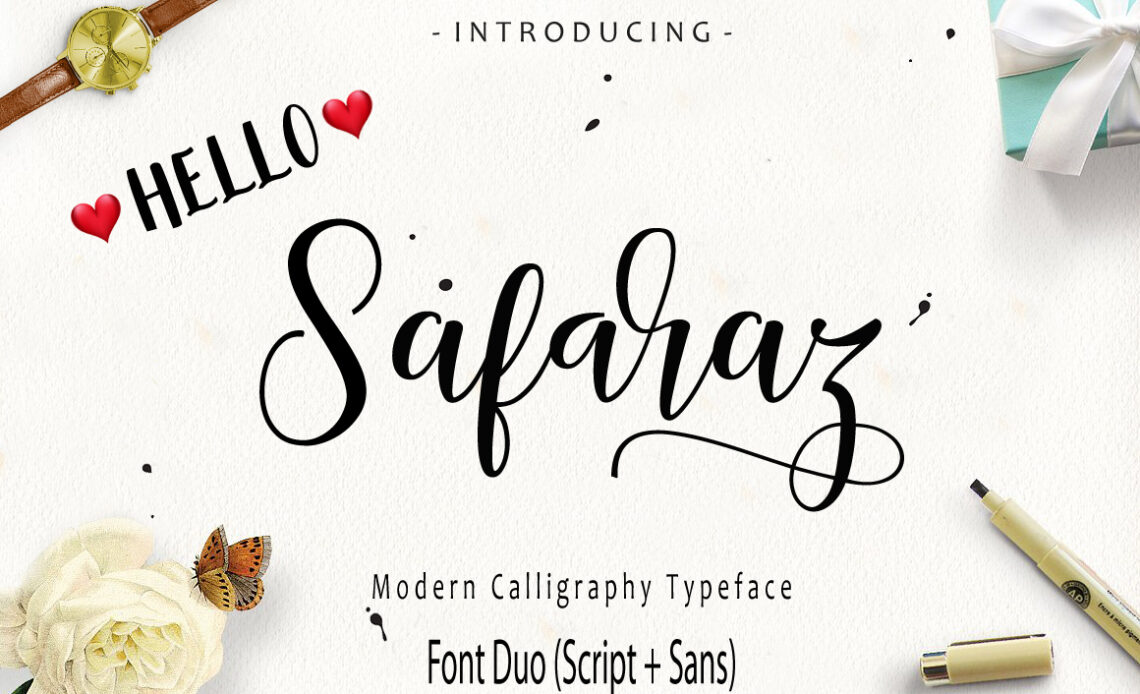
Step into the enchanting world of Safaraz Font Duo, a remarkable creation from the design experts at Cooldesignlab. This exceptional font family introduces both a sophisticated script and a modern sans serif, offering endless opportunities for creative expression.
Safaraz Script, with its elegant curves and flowing lines, is perfect for adding a touch of handwritten charm to your designs. Its playful yet refined nature lends itself beautifully to branding, logos, invitations, wedding stationery, social media graphics, product packaging, and more. The organic, almost whimsical appearance of Safaraz Script evokes a sense of warmth and authenticity, drawing the eye to your creations.
In contrast, Safaraz Sans exudes a clean, contemporary aesthetic, ideal for conveying boldness and clarity in your projects. Its sharp lines and geometric shapes make it suitable for headlines, posters, website design, app interfaces, editorial designs, and other projects that demand a modern, minimalist touch. The distinct personalities of Safaraz Script and Safaraz Sans allow for captivating combinations, adding depth and dimension to your designs.
Together, Safaraz Script and Safaraz Sans form a versatile duo, providing endless font pairing possibilities. They seamlessly complement each other, allowing you to create harmonious designs that appeal to a wide audience. Whether you're working on personal projects or commercial endeavors, Safaraz Font Duo is the ultimate tool for adding a touch of elegance and modernity to your creations.
Embrace the artistry of Safaraz Font Duo and embark on a creative journey that knows no bounds. Its versatility and sophistication will elevate your designs, leaving a lasting impression on your audience.